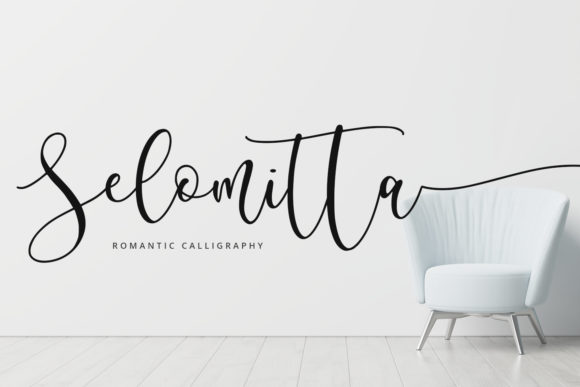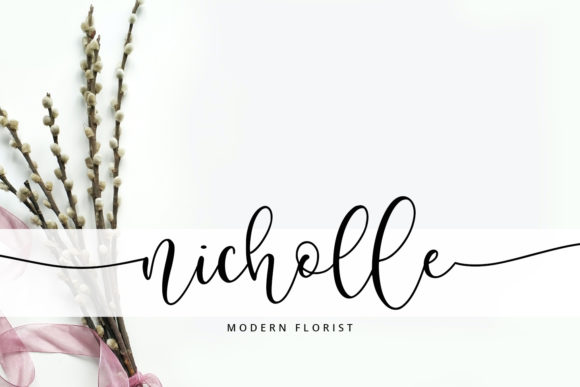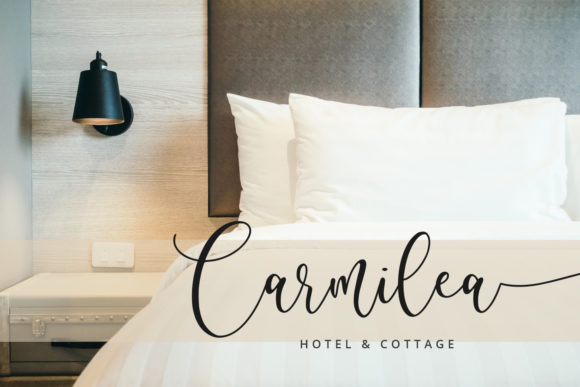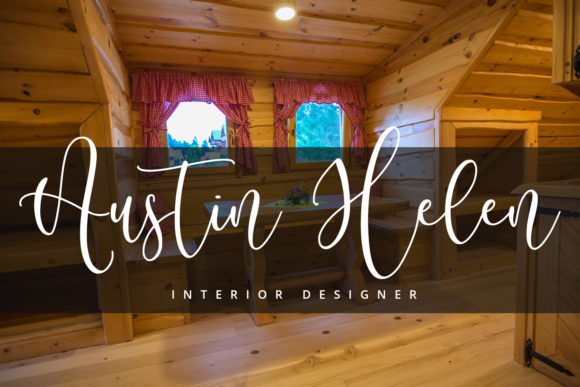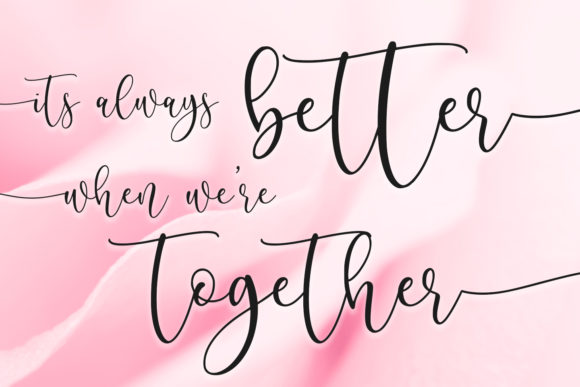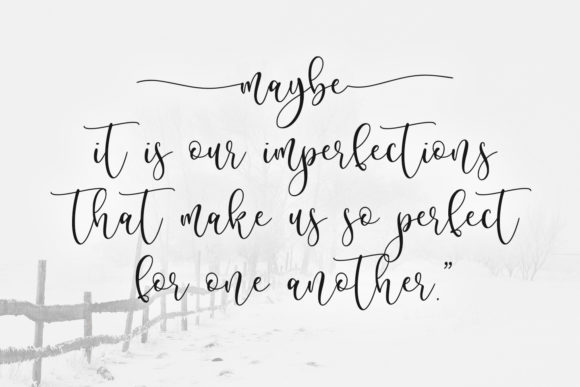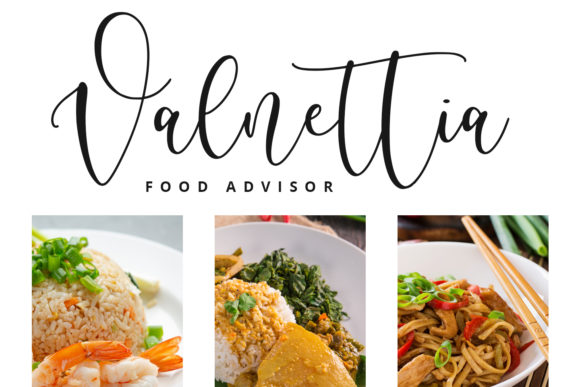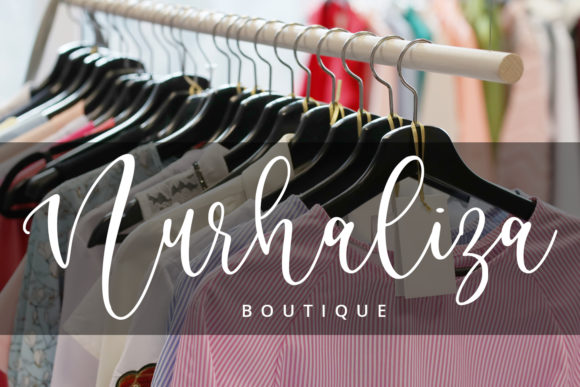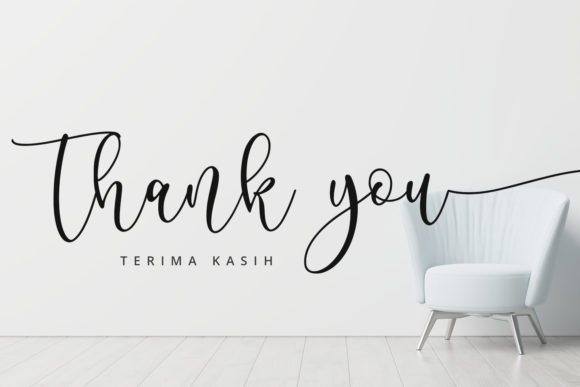
Selomitta Font
About Selomitta Font
Selomitta is a delightful and timeless handwritten font that adds a touch of elegance and charm to your designs. With its unique letterforms and beautiful details, it is the perfect choice for creating eye-catching logos, branding materials, and quotes that truly stand out.
The beauty of Selomitta lies in its carefully crafted letter designs. Each letter is imbued with a unique and beautiful touch, showcasing graceful curves and stylish flourishes. This attention to detail adds a sense of sophistication and creativity to your designs, making them visually appealing and captivating.
Selomitta’s versatility allows it to be used in a variety of design contexts. Whether you’re designing a logo for a boutique, creating branding materials for a wedding planner, or crafting inspiring quotes for social media, this font brings a timeless and elegant aesthetic to your designs.
One of the notable features of Selomitta is its PUA encoding, which allows you to easily access all of the glyphs and swashes. This means you can effortlessly enhance your designs with alternate characters, ligatures, and decorative elements, adding even more creativity and flair to your typography.
The timeless appeal of Selomitta makes it suitable for brands and projects that value sophistication, creativity, and a touch of personalization. Its lovely and unique letterforms make it ideal for conveying a sense of elegance, beauty, and attention to detail.
With Selomitta, every letter becomes a work of art, allowing you to create designs that leave a lasting impression. Its versatility and beauty make it a top choice for creating eye-catching logos, stunning branding materials, and impactful quotes.
Incorporate Selomitta into your designs, and let its unique and beautiful touch breathe life into your creations. Whether you’re working on a logo, branding, or quotes, this lovely handwritten font will elevate your designs and make them truly captivating.